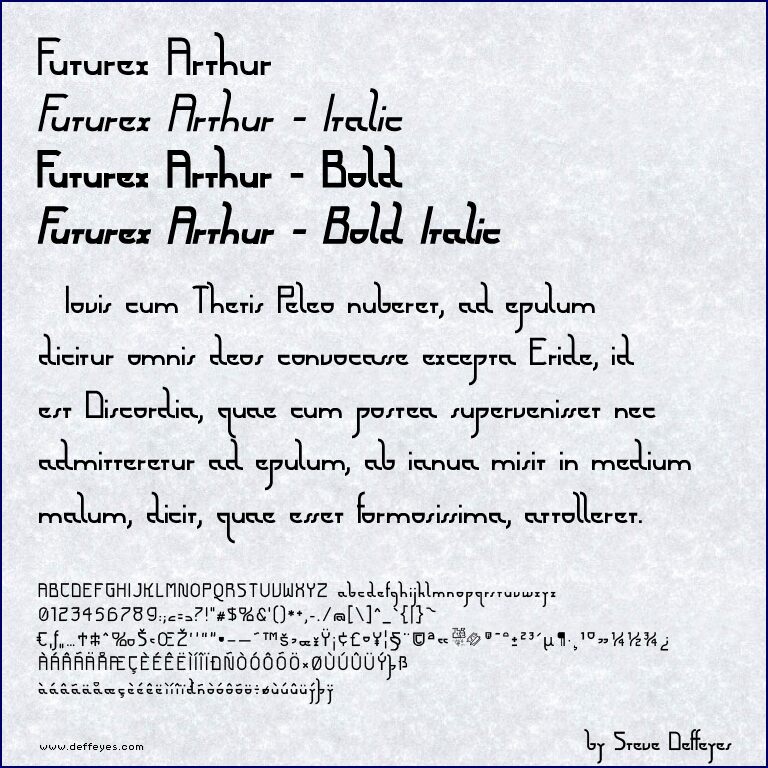
Futurex Arthur Bold
Futurex Arthur Bold by Graham Meade and Steve Deffeyes of Apostrophic Laboratories is a free futuristic sans serif with broad, solid strokes and sharply sliced ends. Wide curves give the letters a low, grounded stance.
Those cutaway edges echo spacecraft panels and schematic graphics, making the face useful for science-fiction posters and game interfaces. The rounded construction also suits toy packaging, where the lettering can feel engineered yet approachable. Music merchandise and event signage are other credible settings for its punchy, custom-built silhouette.
My contribution to the Apostrophic L'ab Futurex project. Minor updates were made in August 2009. Includes regular, italic, bold, and bold italic versions.